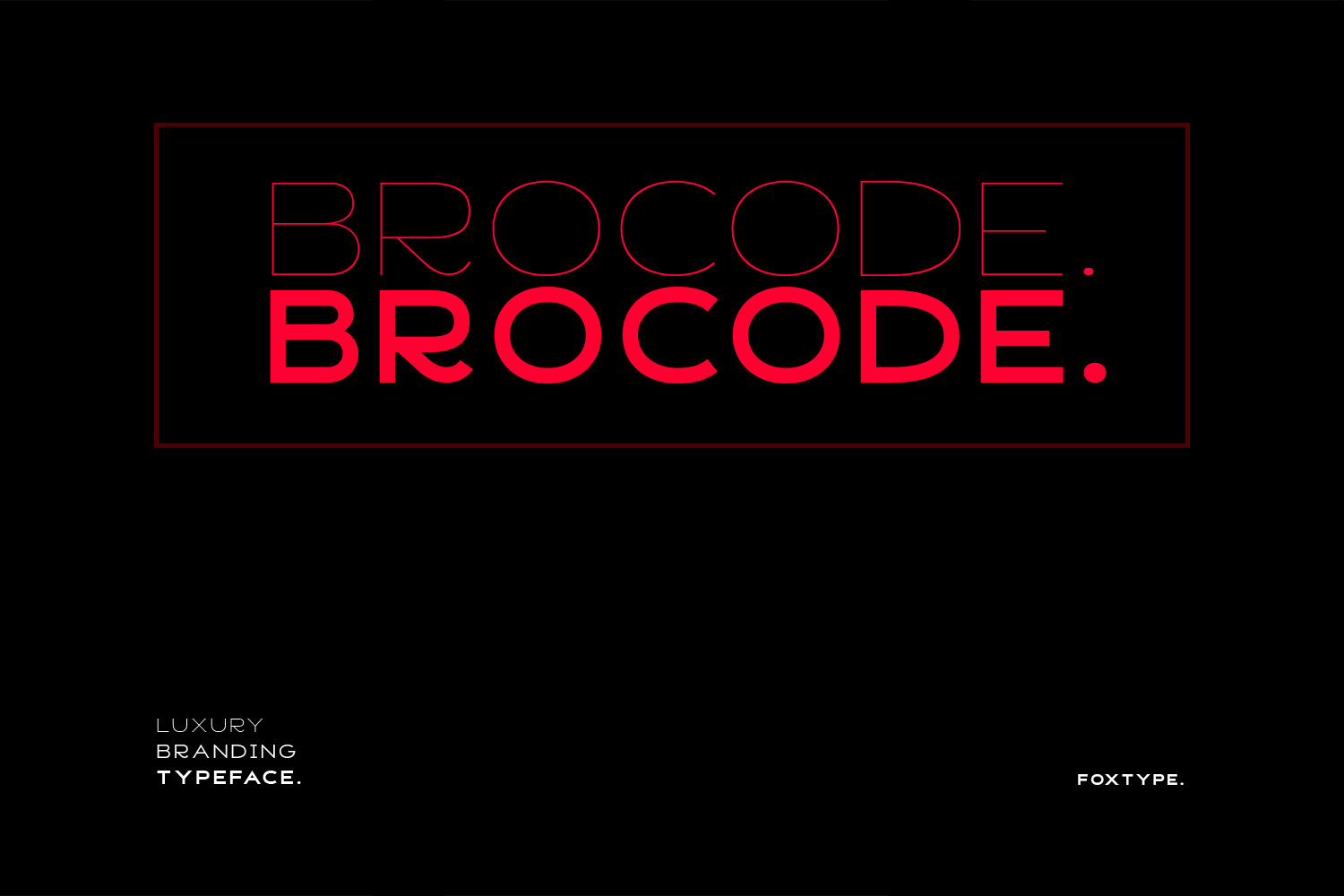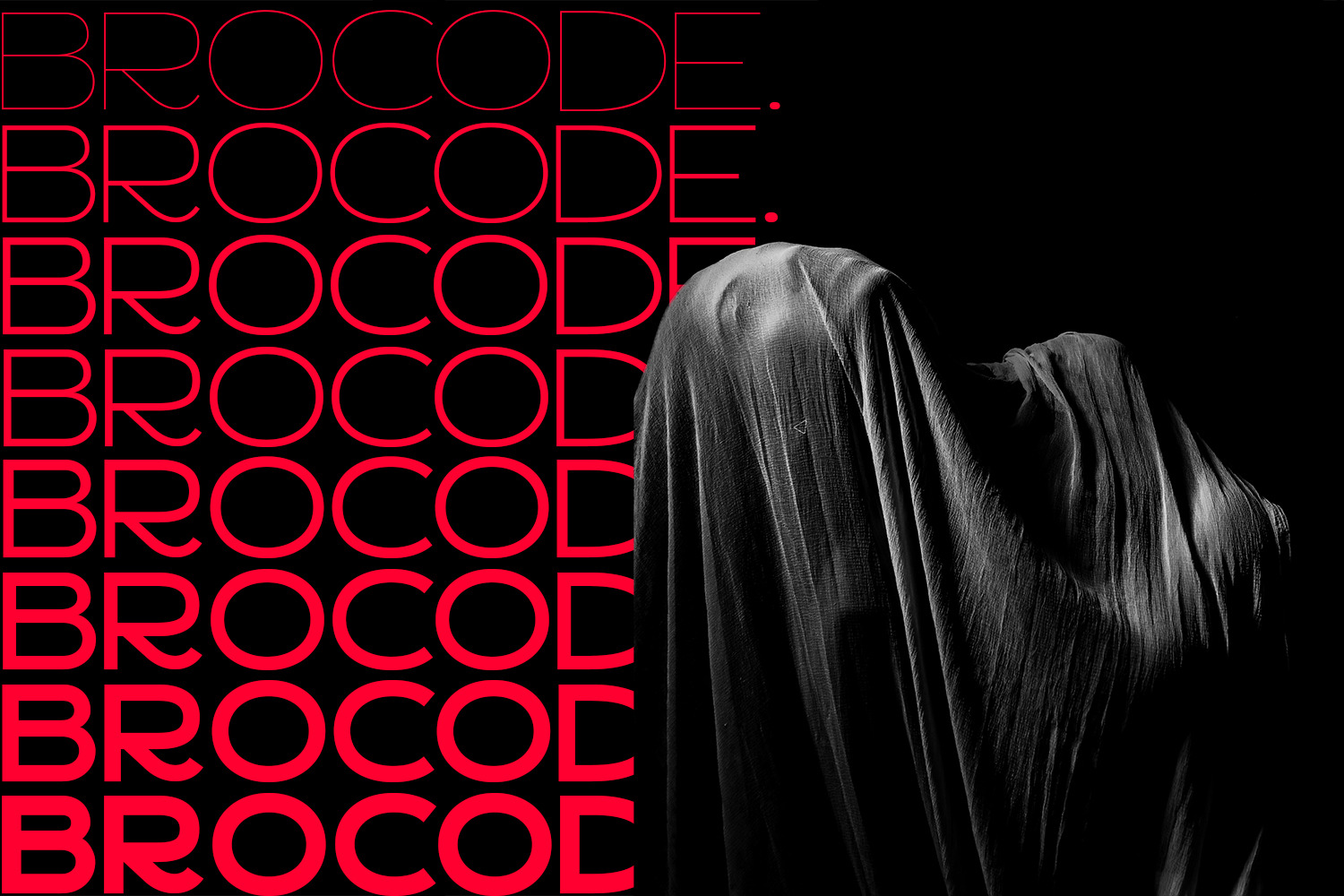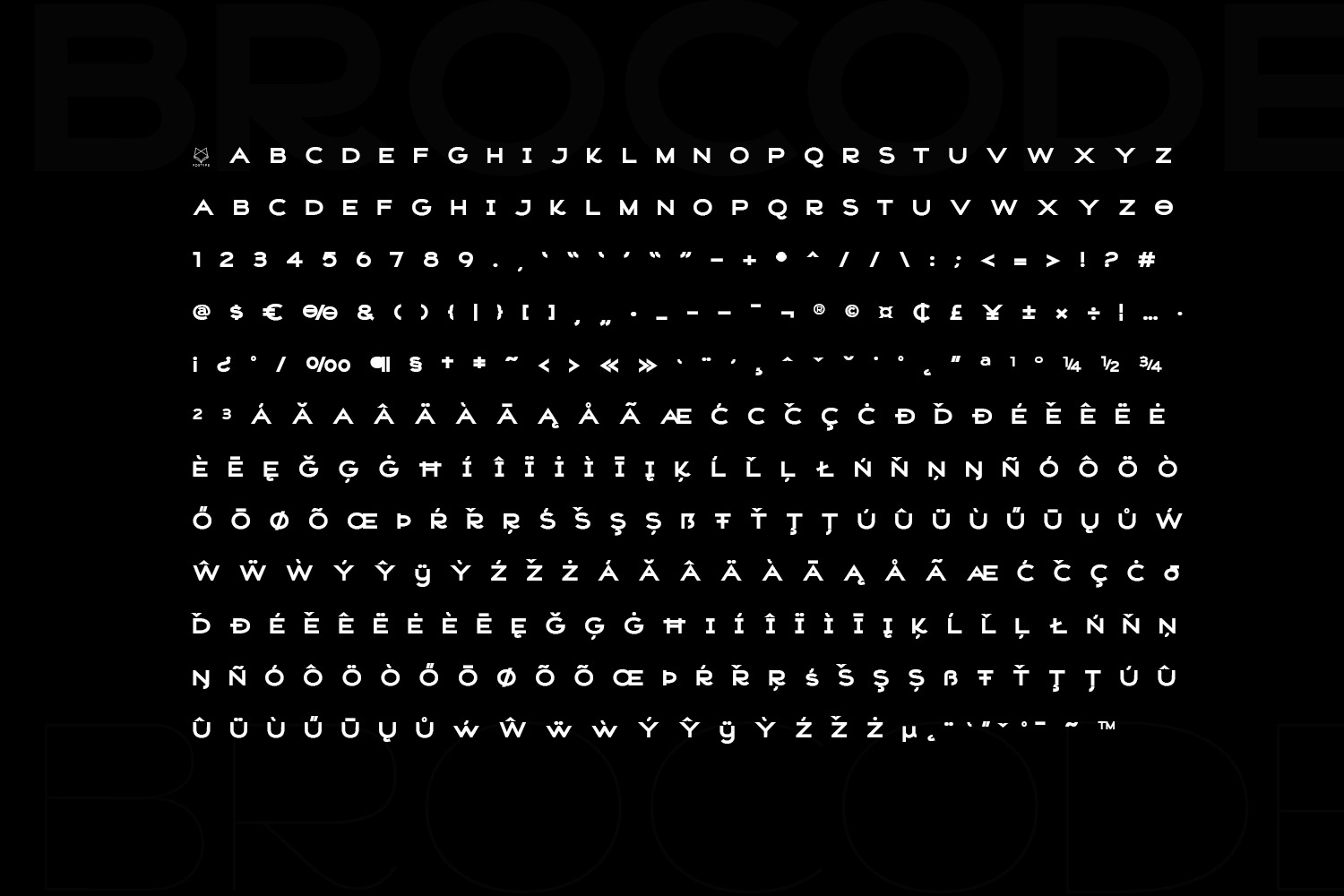
Brocode Display Typeface
Brocode Display is a Unique Modern Elegant Typeface with Web-fonts. It's a very versatile font that works great in large and small sizes. Brocode Font would perfect for branding, logos, headlines, Captions. or simply as a stylish text overlay to any background image. Strong capitals and a smooth, open lowercase are effective in a variety of applications. It's shown a clean, minimalist, warmth, quirky, yet still purposed to be versatile and easy to read.